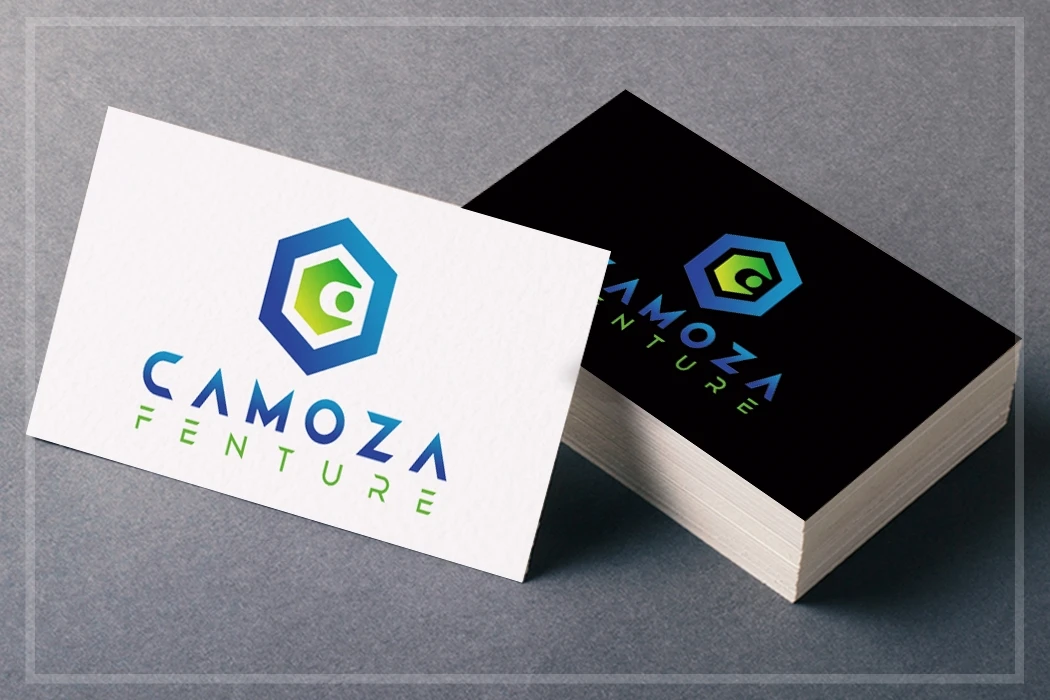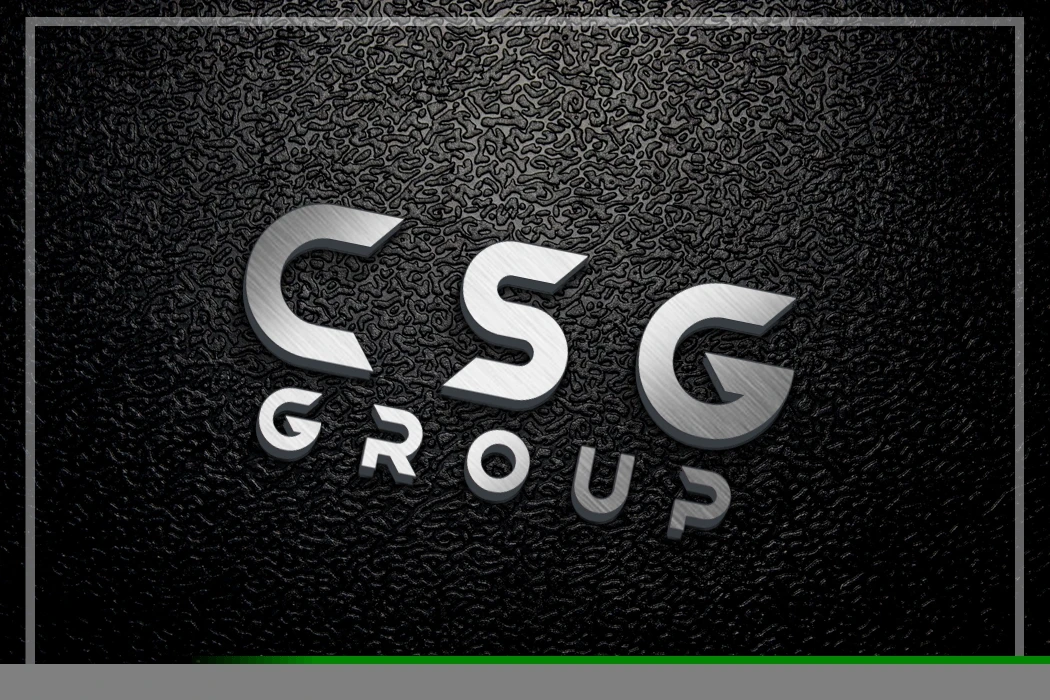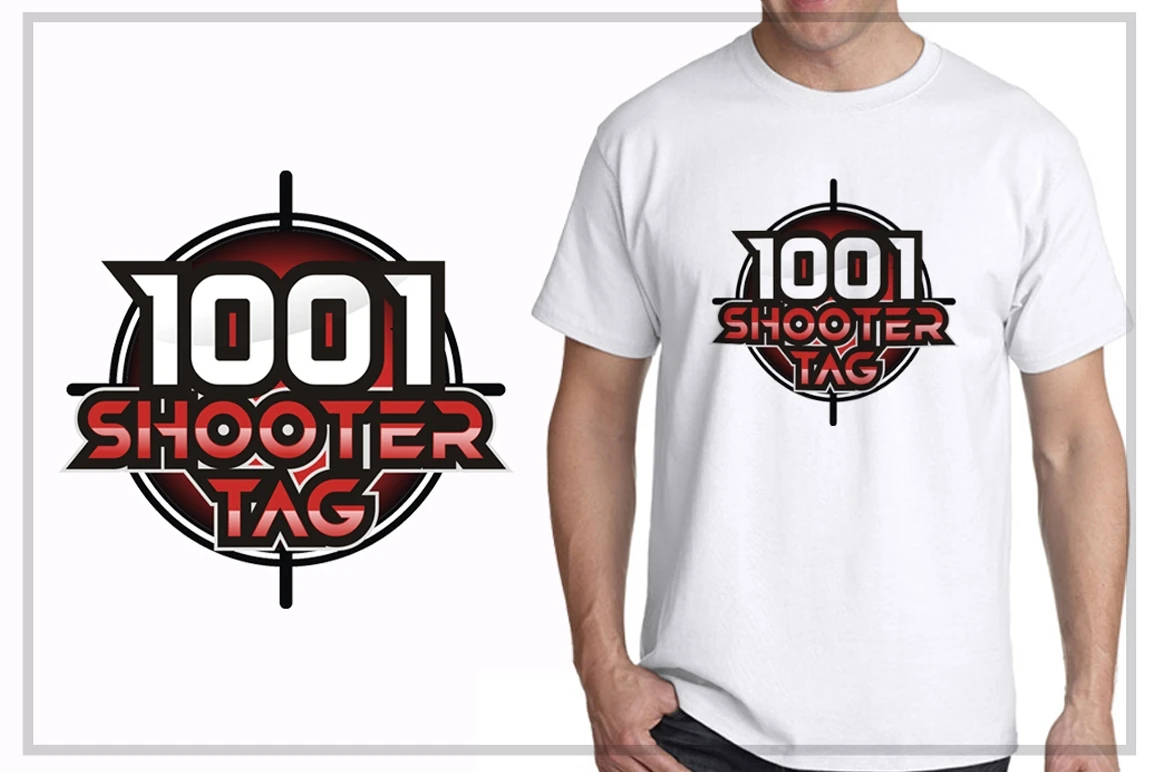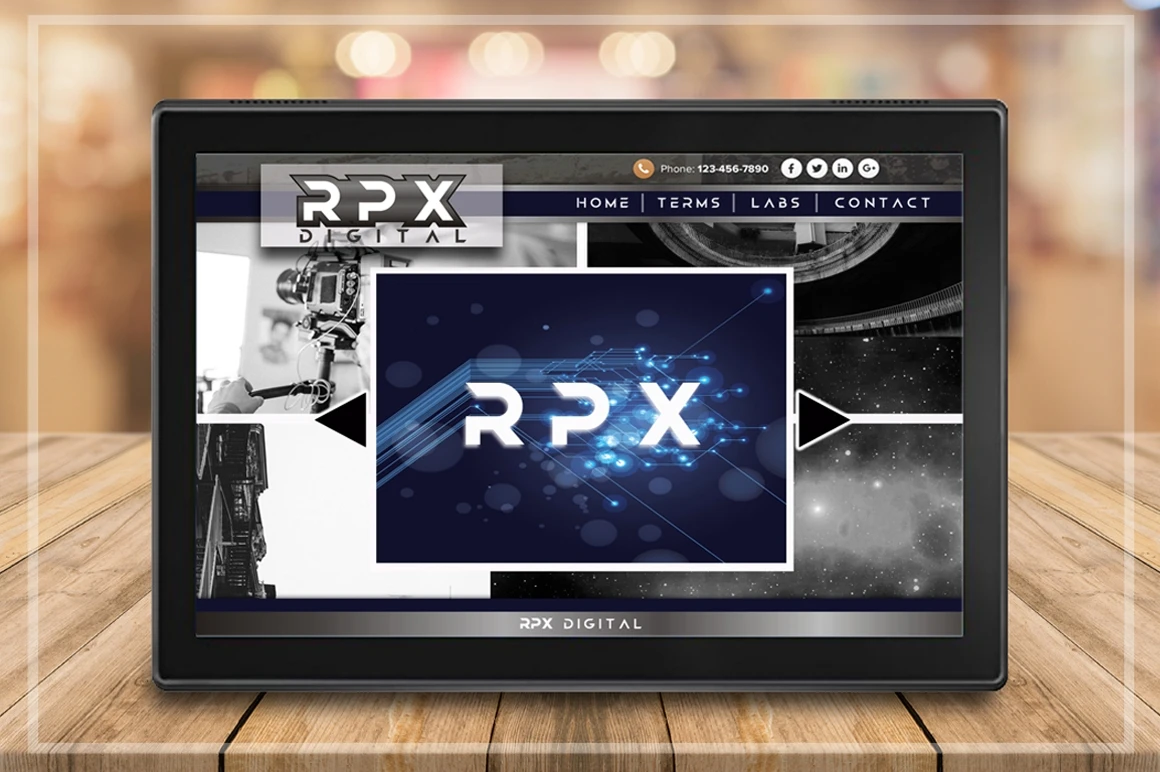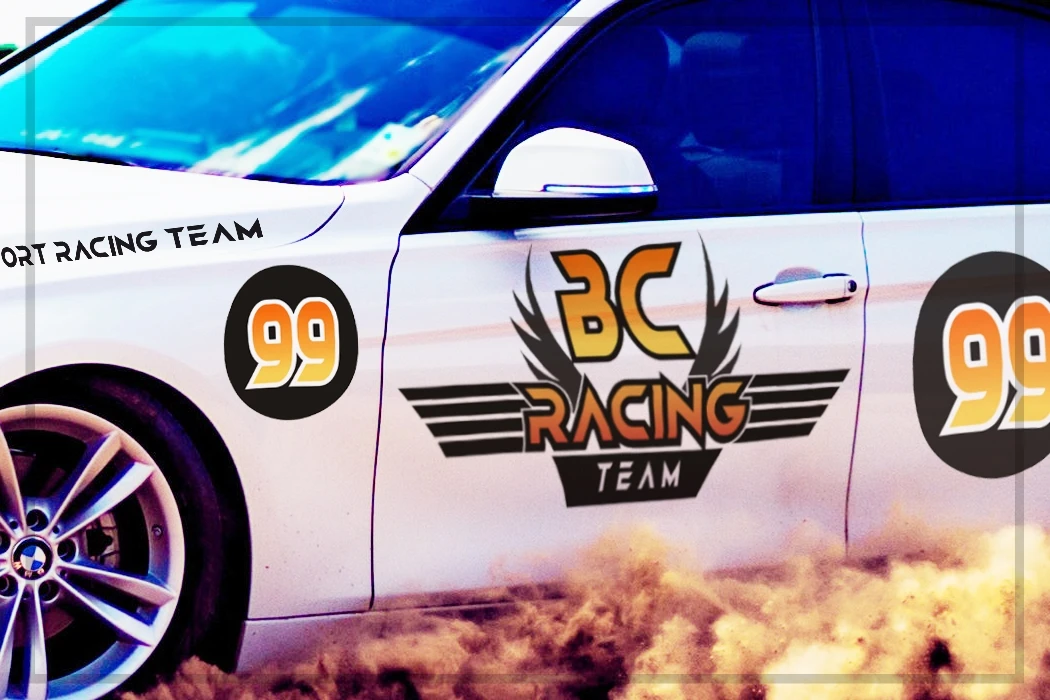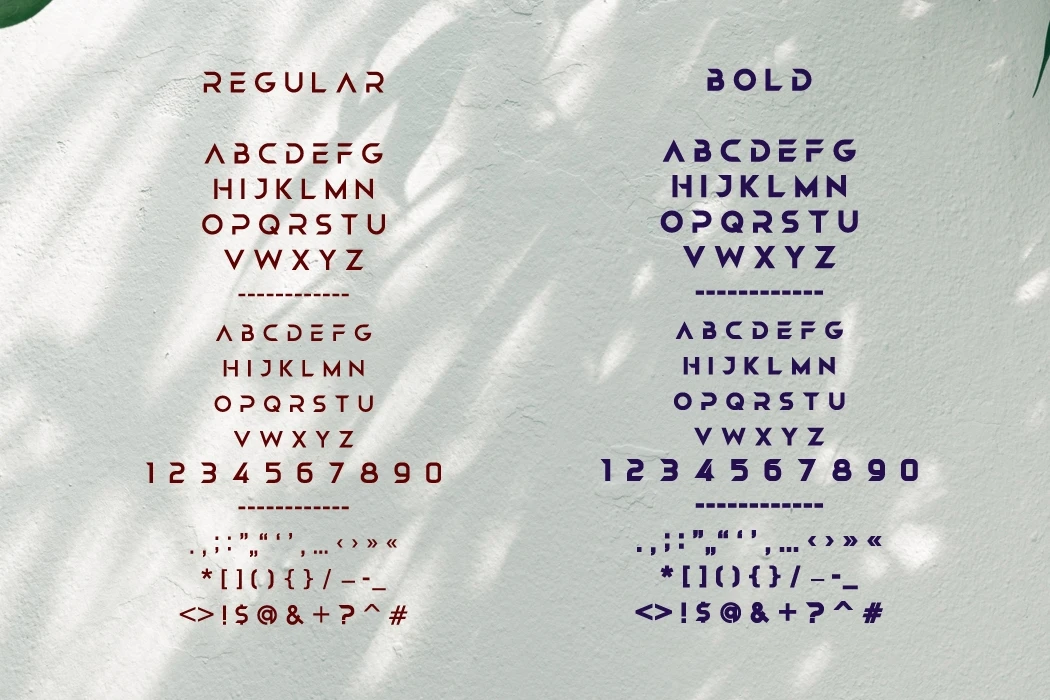
RINTEXY Is a modern and geometric typeface.Suitable and great for your modern logo design etc.
Features :
- Regular and Bold letters
- Uppercase A-Z
- Lowercase A-Z (small size)
- Numbers 0-9
- Punctuation
- Multilingual support